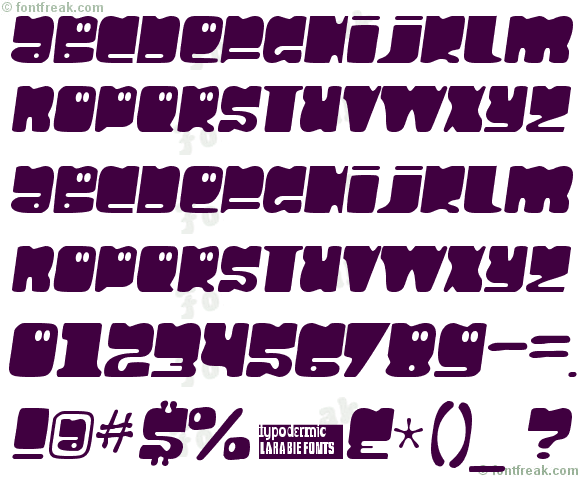
Hello Larry
About Hello Larry
The Hello Larry font, created by Ray Larabie in 1997, is a unique display typeface that captures attention with its playful and quirky design. As a part of the freeware category, this font is available for personal and commercial use, making it a versatile choice for various projects. The Hello Larry font features a bold, rounded style with a distinct lack of sharp edges, giving it a friendly and approachable feel. Its stroke weight is consistent, with a moderate contrast that enhances legibility while maintaining an informal charm. The spacing between the letters is generous, allowing the playful shapes to breathe and making it easy to read.
This font is particularly well-suited for uses such as children’s book covers, greeting cards, party invitations, and creative branding endeavors. Its whimsical nature makes it an excellent choice for projects aimed at a younger audience or those looking to evoke a sense of fun and creativity. Graphic designers, small business owners, and content creators will find the Hello Larry font free download an excellent addition to their type collections, opening up new avenues for engaging design.
What truly sets the Hello Larry font apart is its ability to infuse a sense of joy and light-heartedness into any design. Whether you're crafting a vibrant poster, designing a logo, or creating an eye-catching menu for a trendy café, this font brings a unique character that resonates with viewers. The Hello Larry font is not just a typeface; it's an expression of creativity that invites curiosity and interaction, making it a valuable asset for anyone looking to make a lasting impression.